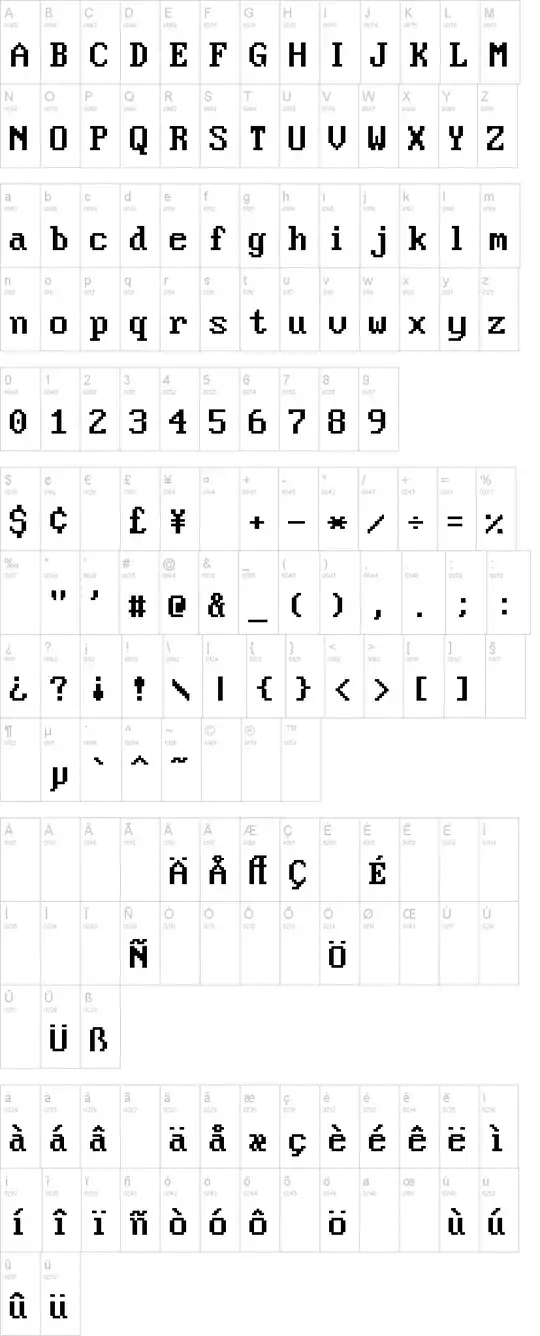
I was wondering if, and how I could get the fonts used in BIOS ROM (the font you see when entering BIOS setup and during early stages of boot).
The same font is used in VirtualBox, when booting a VM.
I'm a Linux user, and I'd prefer the font as bitmap pixel font, so I could use it, but when it's available in another format, that's fine.
The name of it would be helpful as well. All I could find was things like "BIOS font" or "ROM font", which isn't quite accurate.
Here's a picture I found on the web:
And here's VirtualBox:
Edit
Here's a comparison of Unibit and The VirtualBox font:
enter image description here As you can see, Unibit has similar glyphs, but they're narrower than the VGA font.
• OK, some people have answered mentioning rasterized pixel fonts. There are many, and it's one of the reasons, why I haven't found the one I'm still looking for. Is there a way where I could extract the font from VirtualBox? – polemon Aug 28 '11 at 16:16
The in-ROM VGA fonts supplied in the firmwares of both Bochs and VirtualBox — the Plex86/Bochs VGA firmware — are the VGA fonts (VGA-ROM.F??) from Joseph Gil's fntcol16.zip package. They are right there in the Bochs/VirtualBox/Plex86 source code, beneath a big comment saying where they came from.
fntcol16 has an 8×16 font, as used for VGA 25 line text modes; an 8×14 font; and an 8×8 font as used for VGA 50 line text modes. The fonts used on a real machine for the VGA text modes may well be different. What font is used depends from who wrote the firmware. Various people on the WWW have taken VGA cards that they own and extracted the VGA fonts from the ROM on the card, and converted them with tools such as (apparently) Jan Engelhardt's fnt2bdf.
Various other people have designed their own lookalike fonts, for Microsoft Windows, X, and so forth, from scratch. One such is Dmitry Yu. Bolkhovityanov, who has made a Unicode VGA font based upon the vga.bdf font in XDosEmu.
Be aware, when comparing fonts by eye, that the actual VGA font as displayed on real hardware is usually a 9×16 font. VGA and "SuperVGA" display adapters in (VGA) text modes turn an 8×16 font into, variously, a 9×16 font, an 8×16 font with a 1-pixel border between characters, or a 7×16 font with a 1-pixel border between characters. This is done in hardware. The 9×16 font is constructed by either adding a background ninth pixel or (for glyphs 0xC0 to 0xDF) repeating the final pixel.
After the some research, the font you are looking for is called: 3270. Not sure it has an official font name. However, I guess IBM 3270 font is the closest. The font you're looking for is a monospace raster font. I'm not sure what the officially name is but is it's sometimes refer to a VGA font or VGA raster font. Perfect DOS VGA is a very good match. Probably, a perfect match.
• Great! I'll take a look at it. On Linux, I have the font "Unibit", which has a really close resemblance to the font I use. I'm not sure, where the font comes from. – polemon Aug 28 '11 at 17:10
• I was wrong with IBM3270 recommendation. I noticed I was wrong when compared the `y` between the two. – SgtOJ Aug 28 '11 at 17:53
• It's perfect, this should be the accepted answer. – jpangamarca Apr 10 '17 at 20:39
You can find common text mode and PC BIOS fonts in .fon and .ttf format on this site - http://int10h.org/oldschool-pc-fonts/
FWIW, those are two different fonts: VirtualBox uses VGA text mode, while the BIOS photo uses MCGA. (Note the different m letters.)
One version is available here.
Linux kbd package comes with fonts default8x16 and drdos8x16, but they are in PCF format (which can be converted to FON).
Some years ago I created a TTF adaptation of the FreeDOS fonts: http://dosega.sourceforge.net/ Perhaps this will be close to what you are looking for.
Is this what you are looking for?
Searching for System Font or DOS System Font may help.
• It's not the correct font. It's a nice recreation, but take a look at the zeros. The one in the font you linked, are slashed, the ones I mean are dotted. It's only a minor difference, but I need exactly the one used on BIOS and VirtualBox. – polemon Aug 28 '11 at 16:04
In Windows 7, the font is called "Terminal"